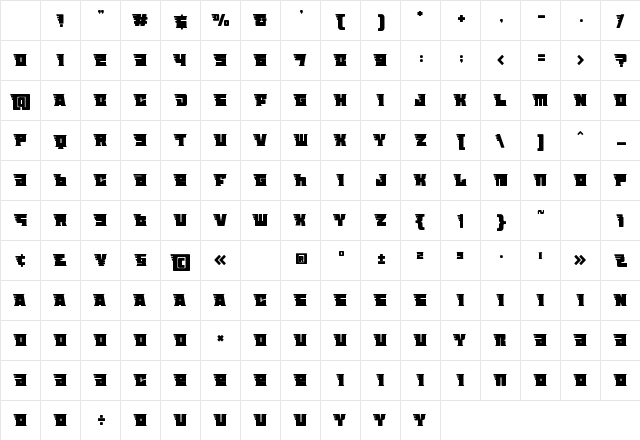
Complete Astral Zenith Eleven Regular glyph index. Displaying only characters natively supported by Astral Zenith Eleven Regular font.
Astral Zenith Eleven is a composed and adaptable typeface that performs quietly and consistently across a wide range of design contexts.